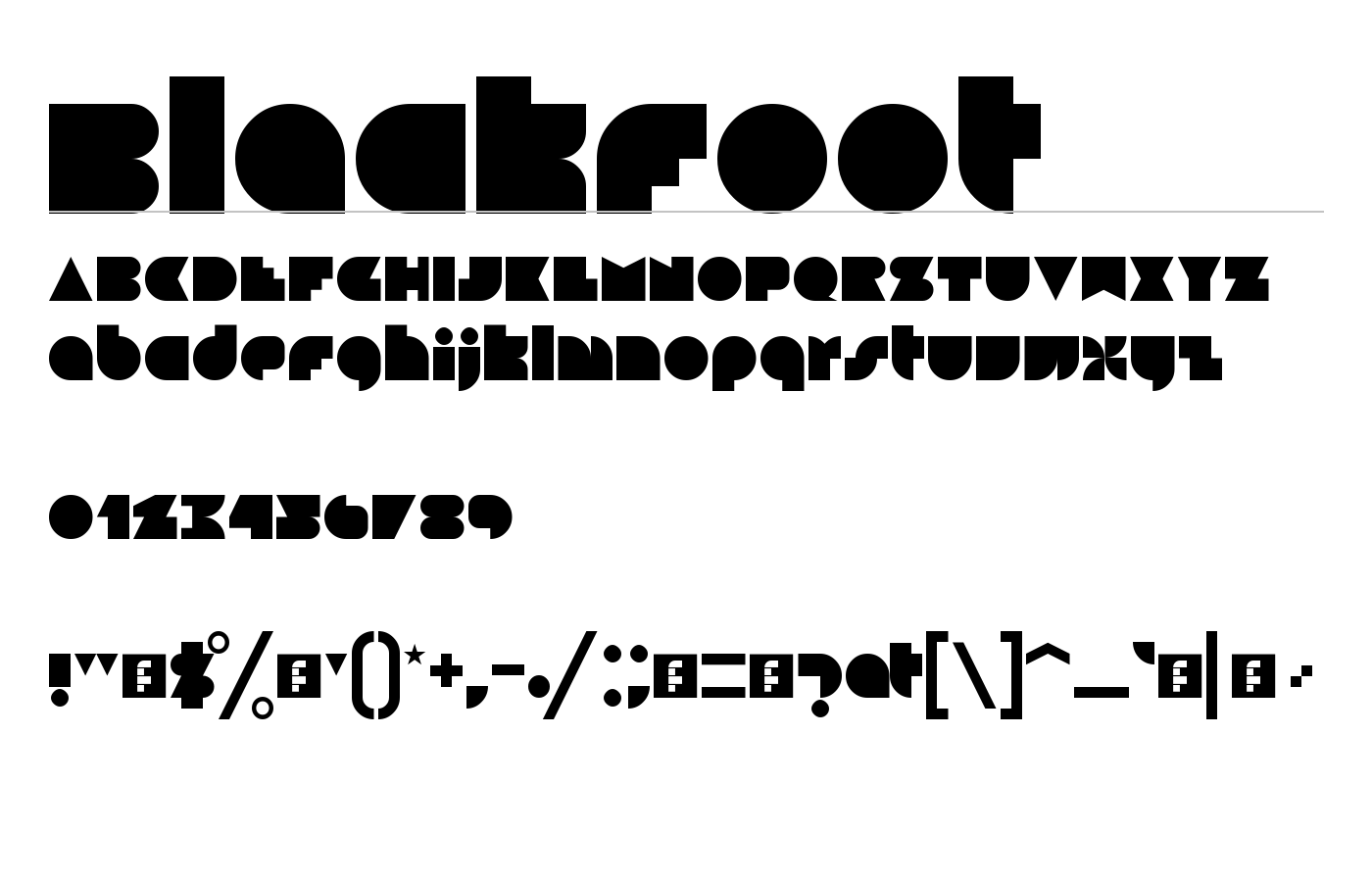
Blackfoot is a bold, geometric sans-serif font featuring thick, blocky letterforms with sharp edges and playful shapes, creating a distinctly modern yet retro feel. Its strong visual impact and compact spacing make it ideal for eye-catching logos, headlines, and creative branding where a unique, artistic touch is desired. This font works best in display settings that benefit from its bold personality and unconventional style.
Blackfoot Font
About Blackfoot Font
| Font family | Blackfoot Font |
| Designer | Jamie Place |